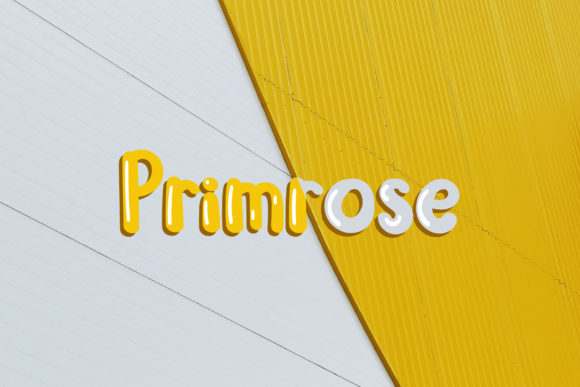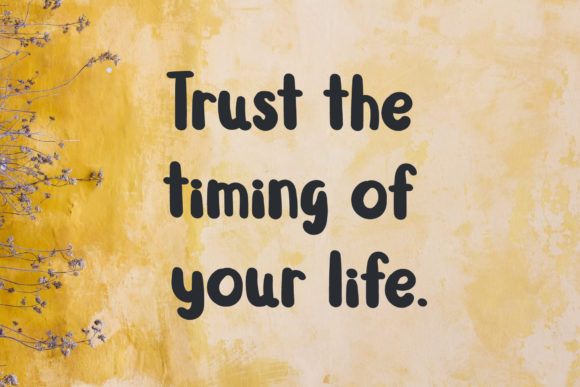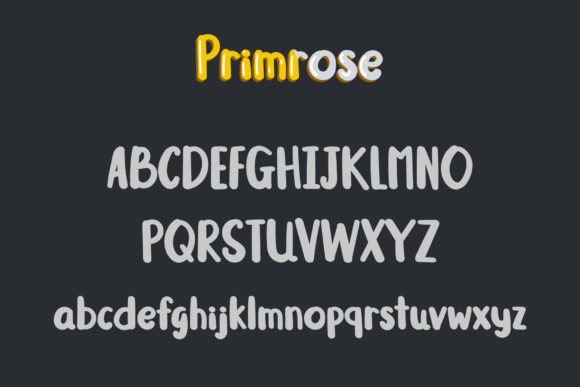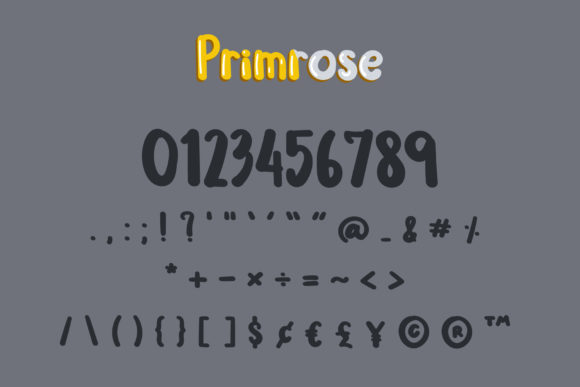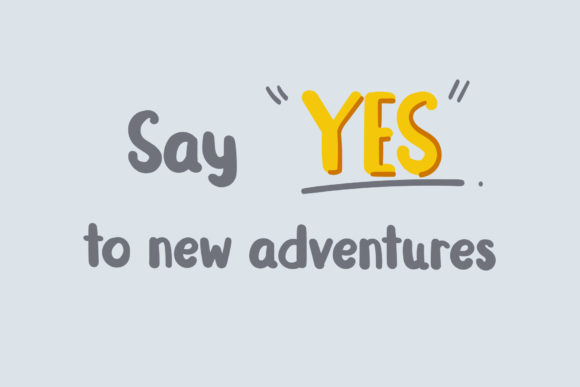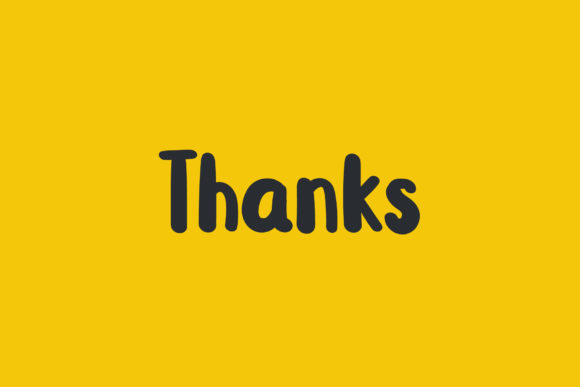
Primrose Font
About Primrose Font
Primrose embodies fun and authenticity. This enchanting handwritten font will turn any creative idea into a true standout. It is the perfect fit for all of your logos, branding, social media, and crafty DIY projects.